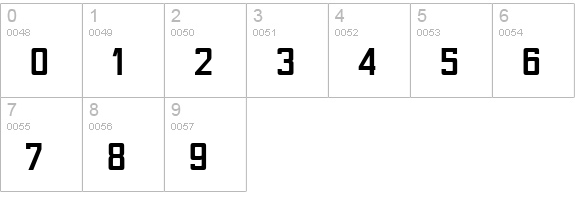
NesobriteScBl-Regular is the standard, neutral variant in the NesobriteScBl typeface family \xE2\x80\x94 well suited to general body text, paragraphs, and standard typographic work.
NesobriteScBl-Regular is a modern and stylish sans-serif font that exudes elegance and sophistication. This versatile typeface features clean lines and a sleek design, making it perfect for a wide range of design projects. Whether you're creating a professional business presentation or designing a sleek website, NesobriteScBl-Regular is sure to make a bold statement. Best of all, NesobriteScBl-Regular is completely free to download at FontsMarket.com. This means you can add this beautiful font to your collection without breaking the bank. Don't miss out on the opportunity to enhance your projects with this stunning typeface. Download NesobriteScBl-Regular today and take your designs to the next level!